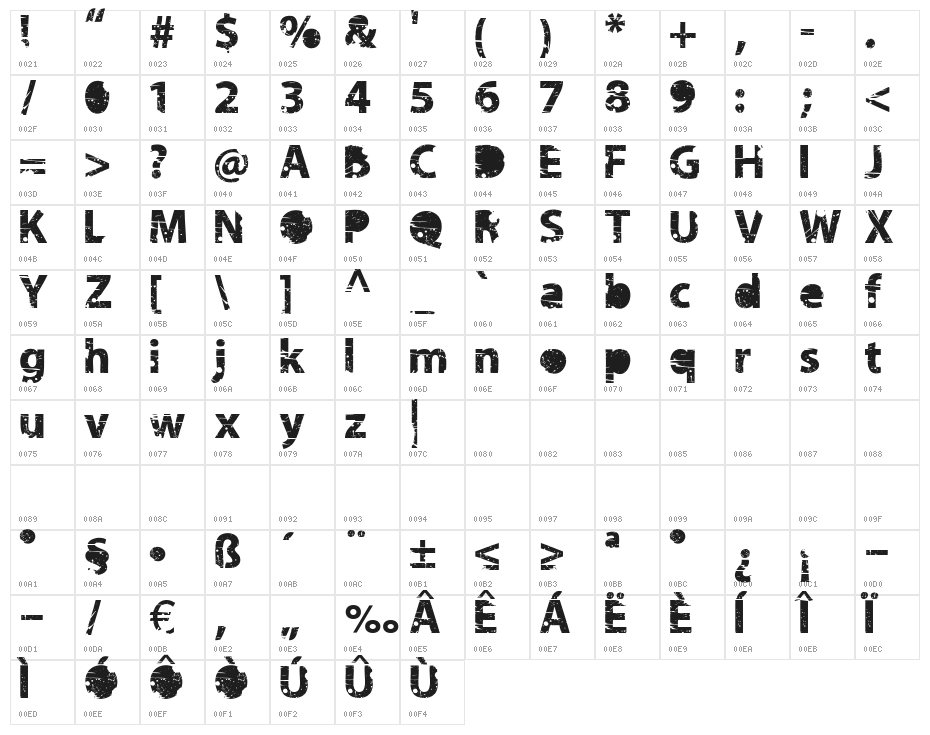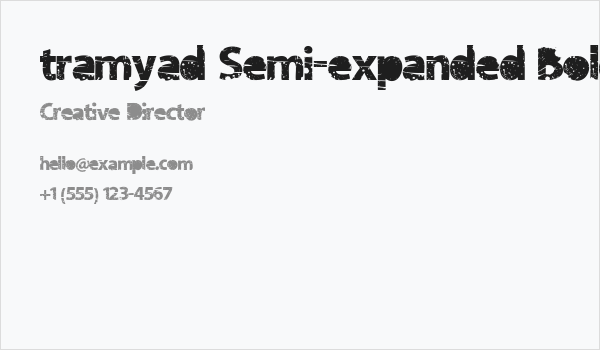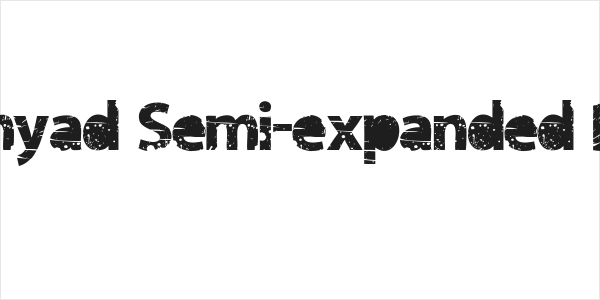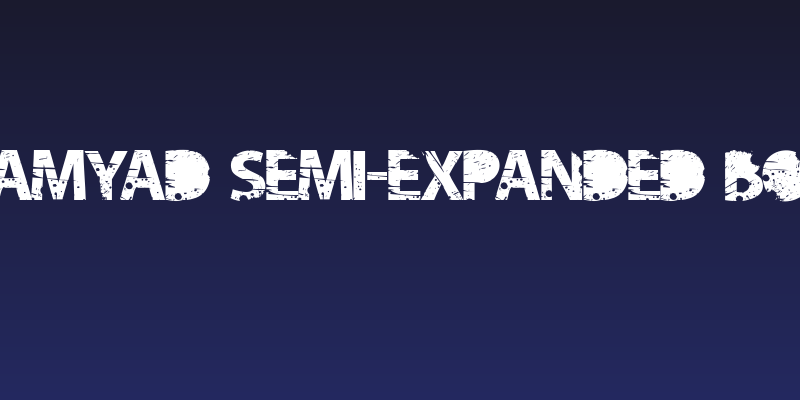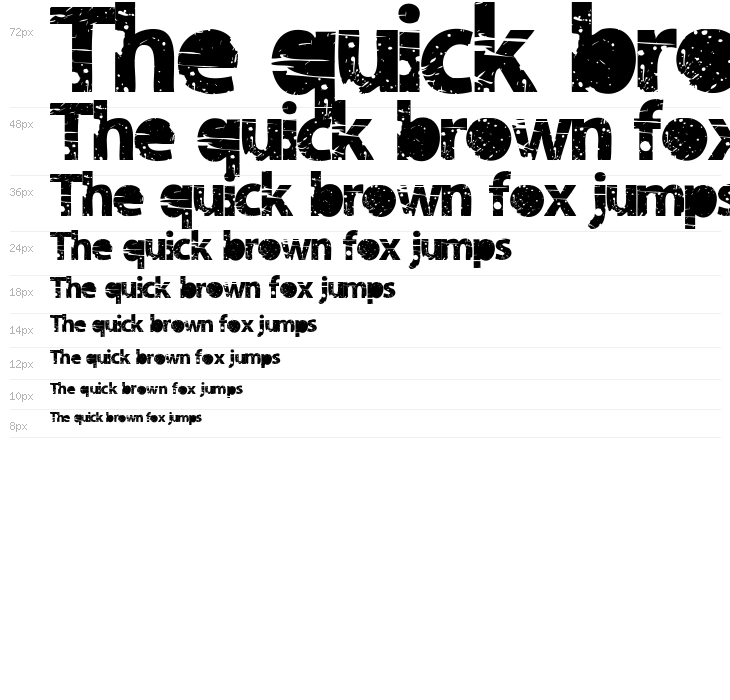
tramyad Semi-expanded Bold Font
tramyad Semi-expanded Bold Description
This font features a bold and semi-expanded style with a distressed, grunge texture that gives it a rugged and worn appearance. The characters are bold and impactful, with a semi-expanded width that provides a sense of openness and readability. The texture adds a unique, vintage feel, making it suitable for designs that require a touch of edginess or a retro aesthetic. The uppercase and lowercase letters maintain a consistent style, while the numbers and special characters are equally bold and textured, ensuring a cohesive look across all text elements.
| Overall Style | Vintage, Grunge |
| Proposed Projects | Ideal for posters, album covers, branding projects, and any design needing a vintage or edgy look. |